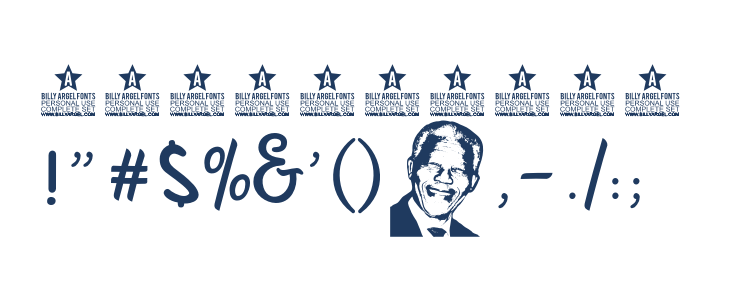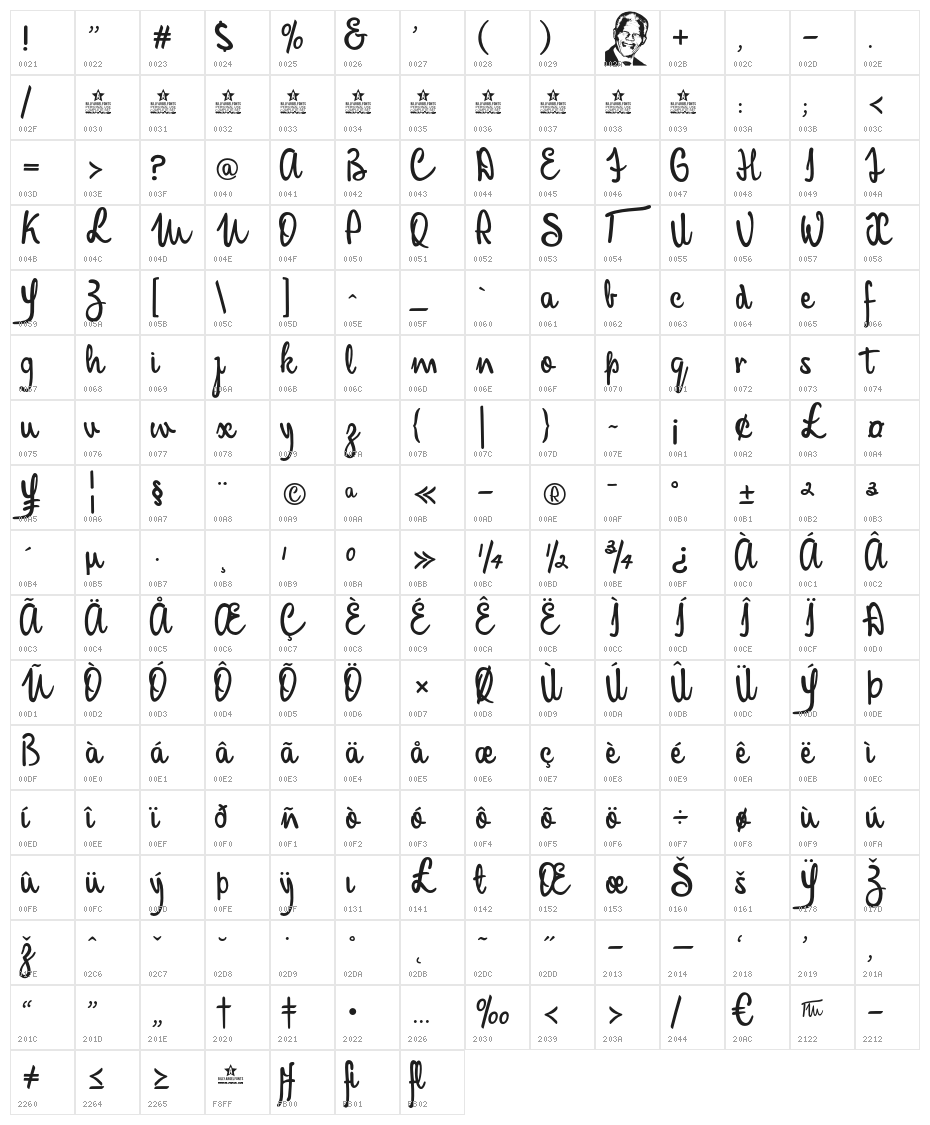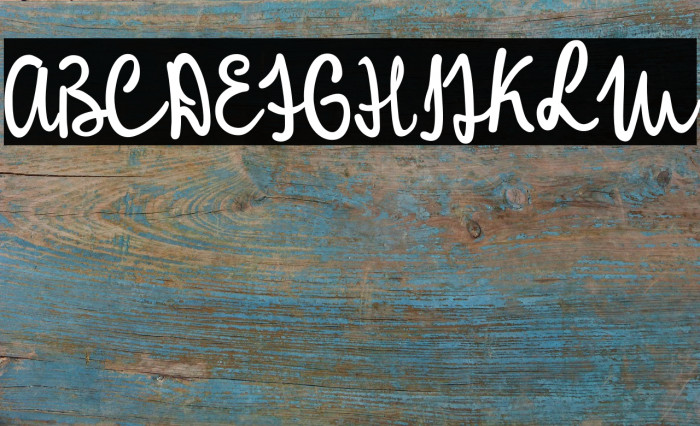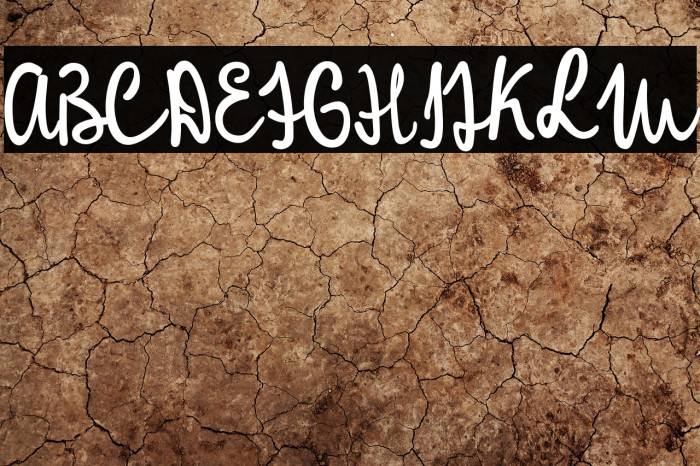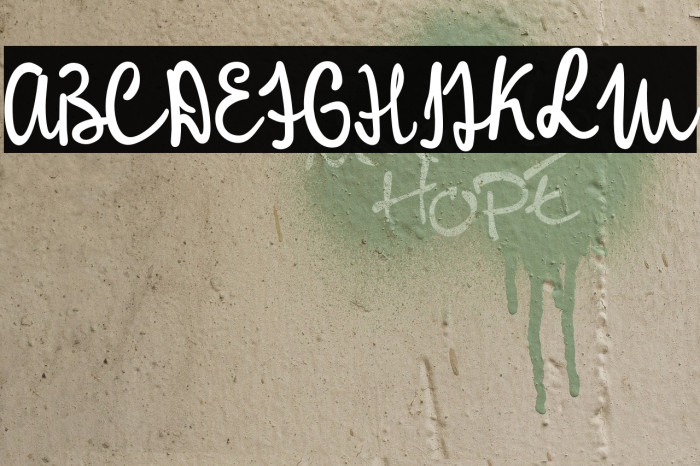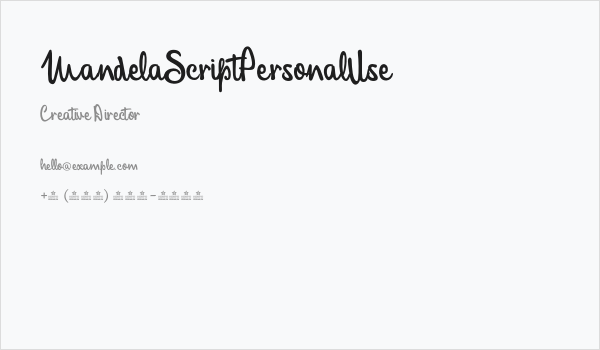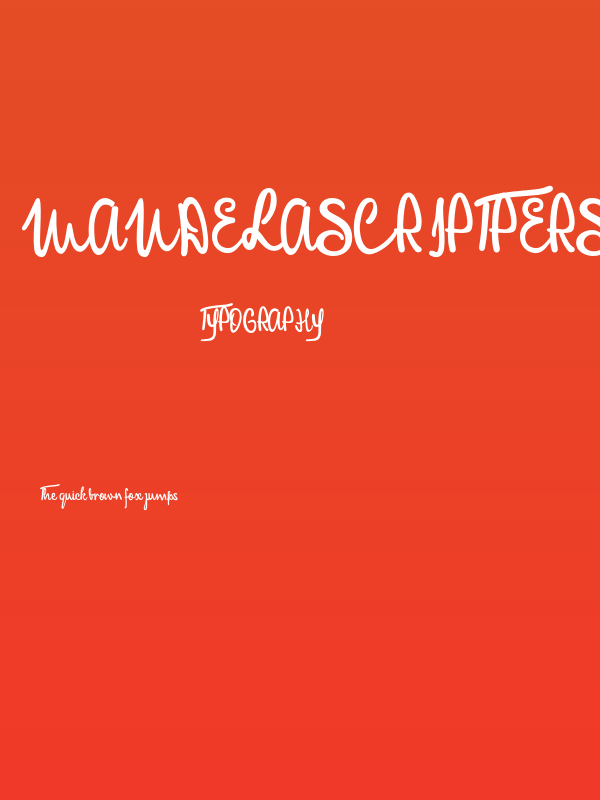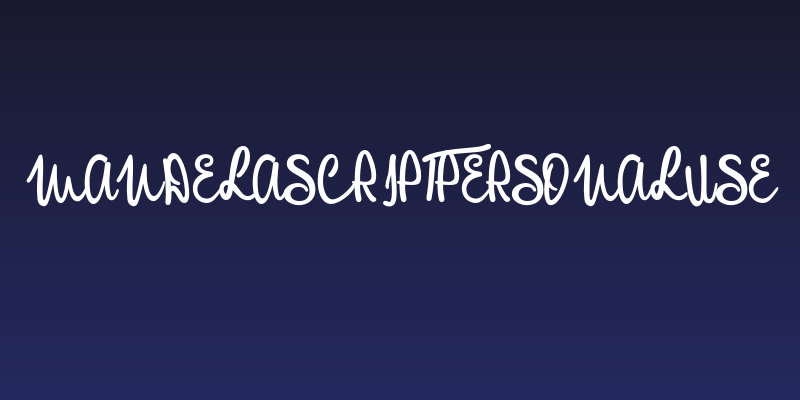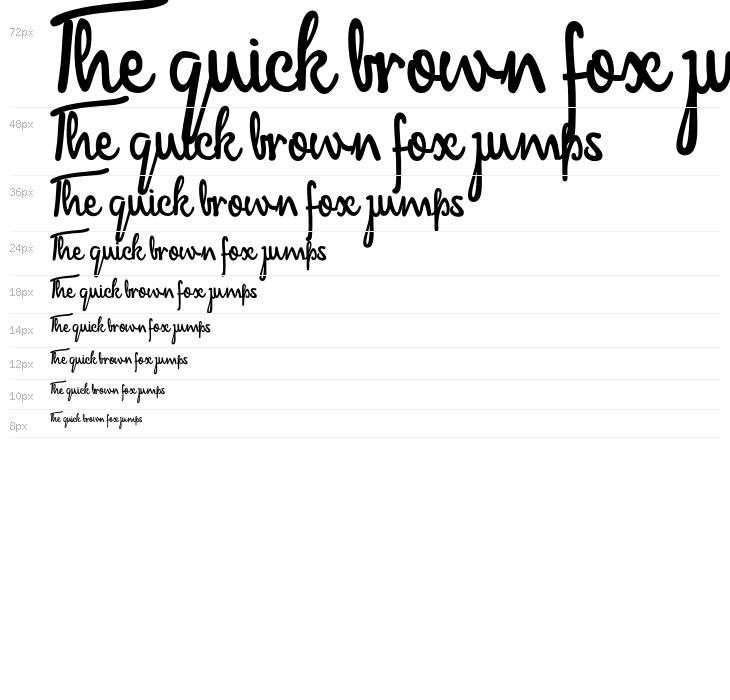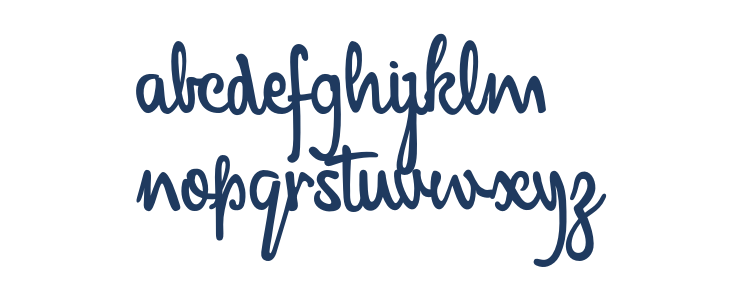
MandelaScriptPersonalUse Font
MandelaScriptPersonalUse Description
This font features a lively and dynamic script style with a handwritten appearance. The letters are interconnected with smooth, flowing strokes, giving it an organic and personal touch. The uppercase letters are bold and expressive, while the lowercase letters maintain a consistent flow, enhancing readability. The font includes a variety of special characters, adding versatility to its use. Its playful yet sophisticated design makes it suitable for creative projects that require a personal and artistic flair.
| Use Case | Logos, Headlines, Artistic projects |
| Proposed Projects | Ideal for greeting cards, invitations, personal branding, artistic posters, and creative social media graphics. |